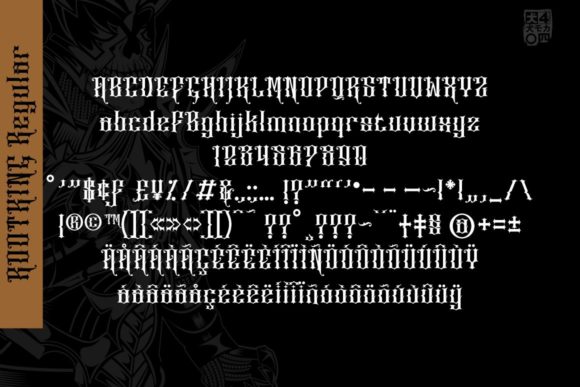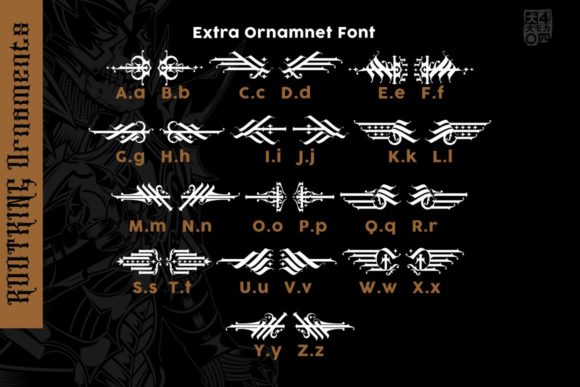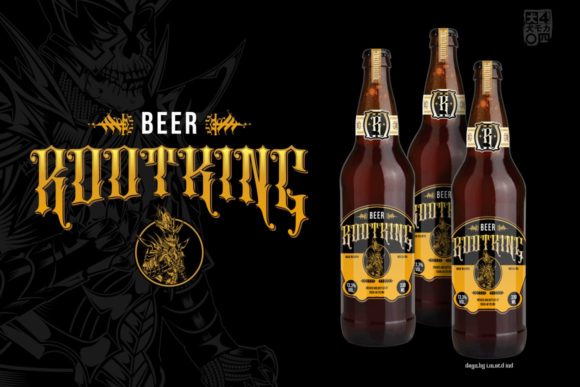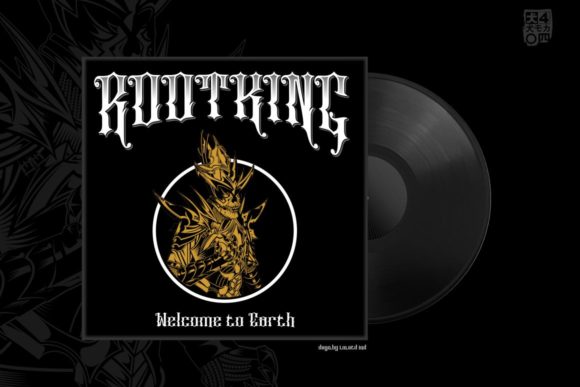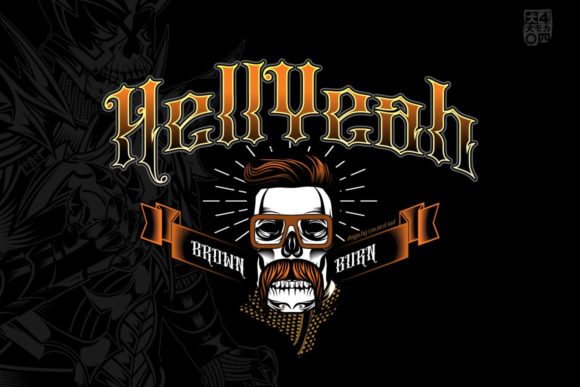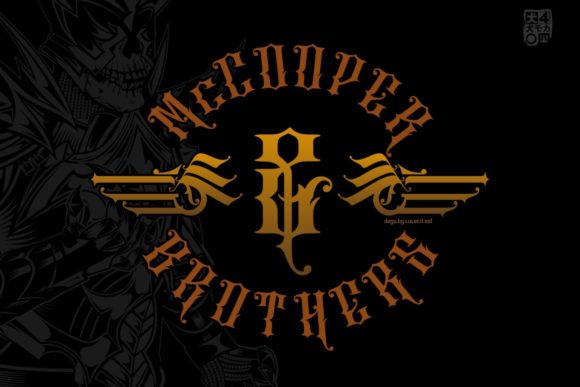
Introduction to RootKing Font
Have you ever been working on a design project, pouring your heart and soul into it, and suddenly, you hit a creative roadblock? You want something that stands out, something that screams uniqueness. That’s when I fell in love with the RootKing Font – an incredibly authentic blackletter font that adds a touch of nostalgia to any project.
As a designer, you’re always on the lookout for that one design resource that makes your creative project truly shine. The RootKing Font is that game-changer. With its high-quality design and versatility, it’s a must-have for any designer looking to add a retro touch to their work. Whether you’re creating a logo, a poster, or a website, this font is sure to make your project stand out.
Key Features of RootKing Font
- Unique, high-quality design ideal for creative projects and design resources.
- Transparent background for seamless integration into various design backgrounds.
- High-resolution design, perfect for use in print and digital media.
- Available in various font sizes, including small, medium, and large font sizes.
- Designed to be versatile and adaptable for use in a range of creative projects.
Honest Review: RootKing Font
As a designer, I’m always on the lookout for high-quality design resources to enhance my creative projects. Recently, I had the opportunity to try out the RootKing Font, and I’m excited to share my honest review with you.
Here are the things that work well: ✨
- High-quality font with a unique, rustic feel
- Translucent background makes it easy to overlay on images
- Available in a range of sizes and styles to suit various design needs
However, there are a few limitations: ⚠️
- Limited support for international languages
- No bold or italic versions available
- Some users may find the font too ornate for certain design projects
Overall, I’m impressed with the RootKing Font as a design resource. While it may not be perfect, its unique feel and high-quality design make it a great addition to any creative project. With a free download option available, it’s definitely worth checking out for designers looking for a high-quality font to add some texture to their work.
Tips for Getting the Most Out of RootKing Font
Use RootKing Font with a transparent background to create visually appealing designs. Experiment with different font sizes, colors, and styles to add depth and interest to your designs. Consider combining RootKing Font with other design resources, such as images and graphics, to create a unique and eye-catching look.
RootKing Font is a versatile design resource that can be used for a variety of creative projects, including social media graphics, presentations, posters, brochures, business cards, and more. It’s perfect for designers, marketers, and small business owners who need a high-quality font for their designs.